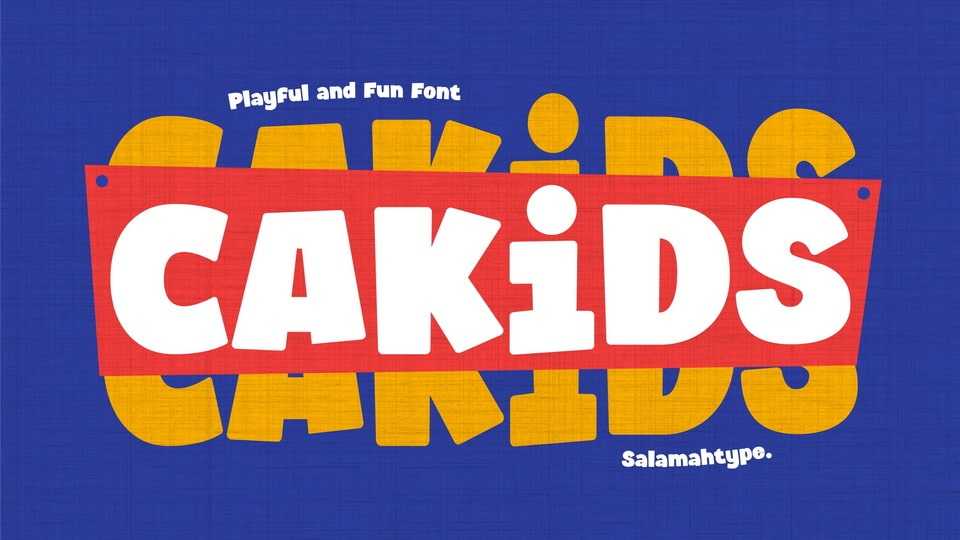
Download Cakids font, a cheerful, playful kids typeface designed with bold, rounded, and friendly letterforms. It brings a fun, energetic, and creative vibe to any children-themed project.